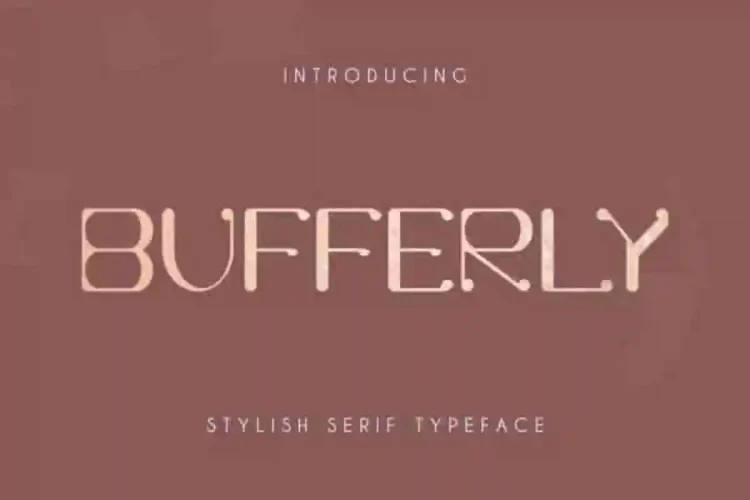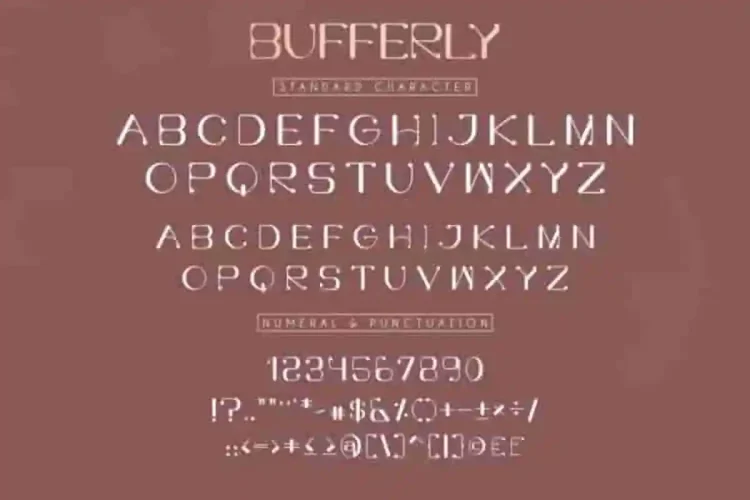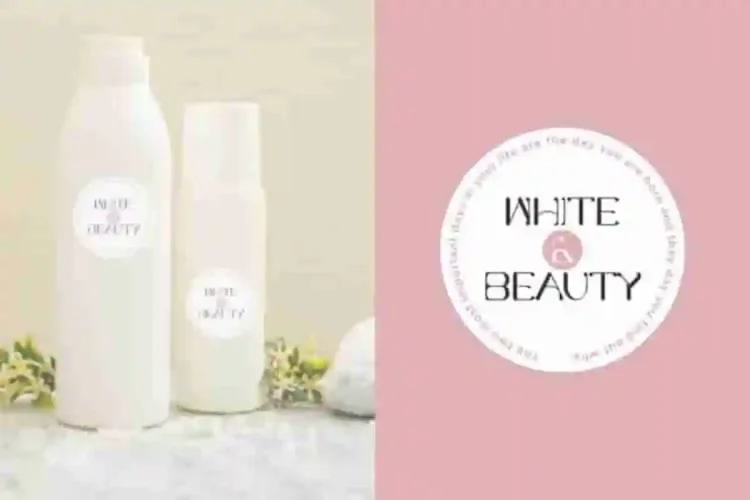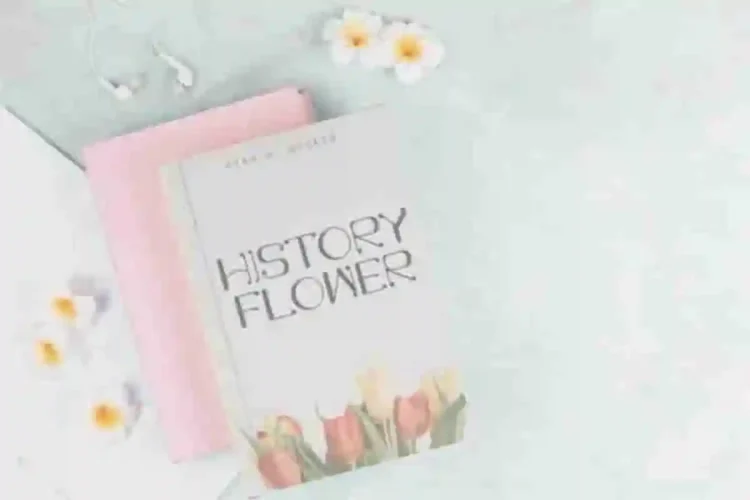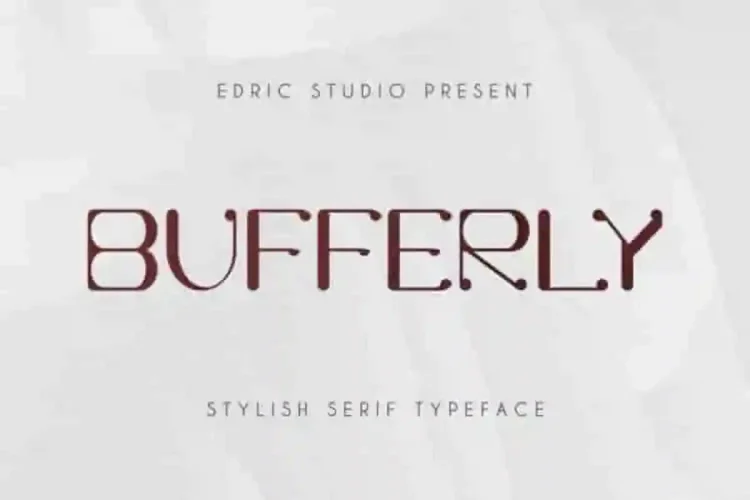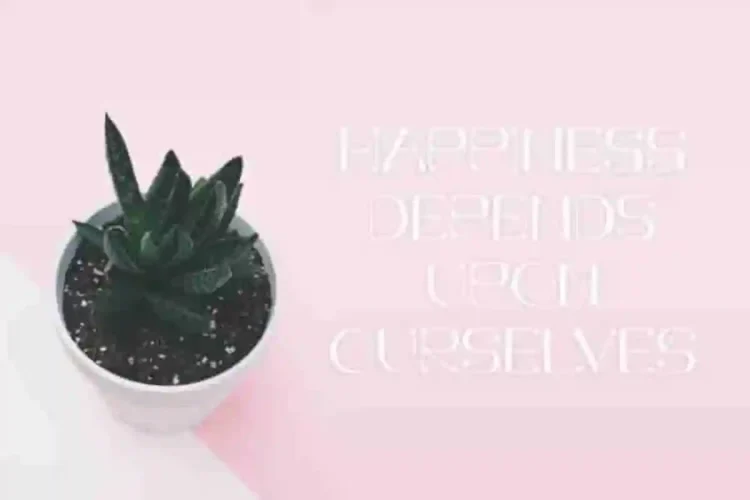
Bufferly Sans Serif Display Font
Introducing our newest font  : Bufferly Sans Serif Display Font
This is a Serif font, handcrafted from our Studio here in, Indonesia. The artists/designers of this beautiful tyeface is Renata and Suci.
Bufferly Sans Serif Display Font is an display font. This font has a stunning characters set, perfectly managed with well spaced and kerning. The theme style of this font will modern, tech, casual, gold, vintage, stylish and sophisticated.